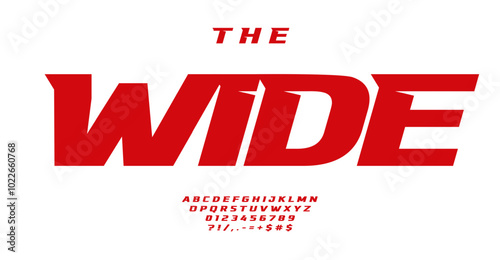
Racing typeface with bold cuts, sharp spikes, modern typography for automotive branding, energetic sports designs, action movie titles. Edgy wide dynamic font, bold swift alphabet. Vector typeset